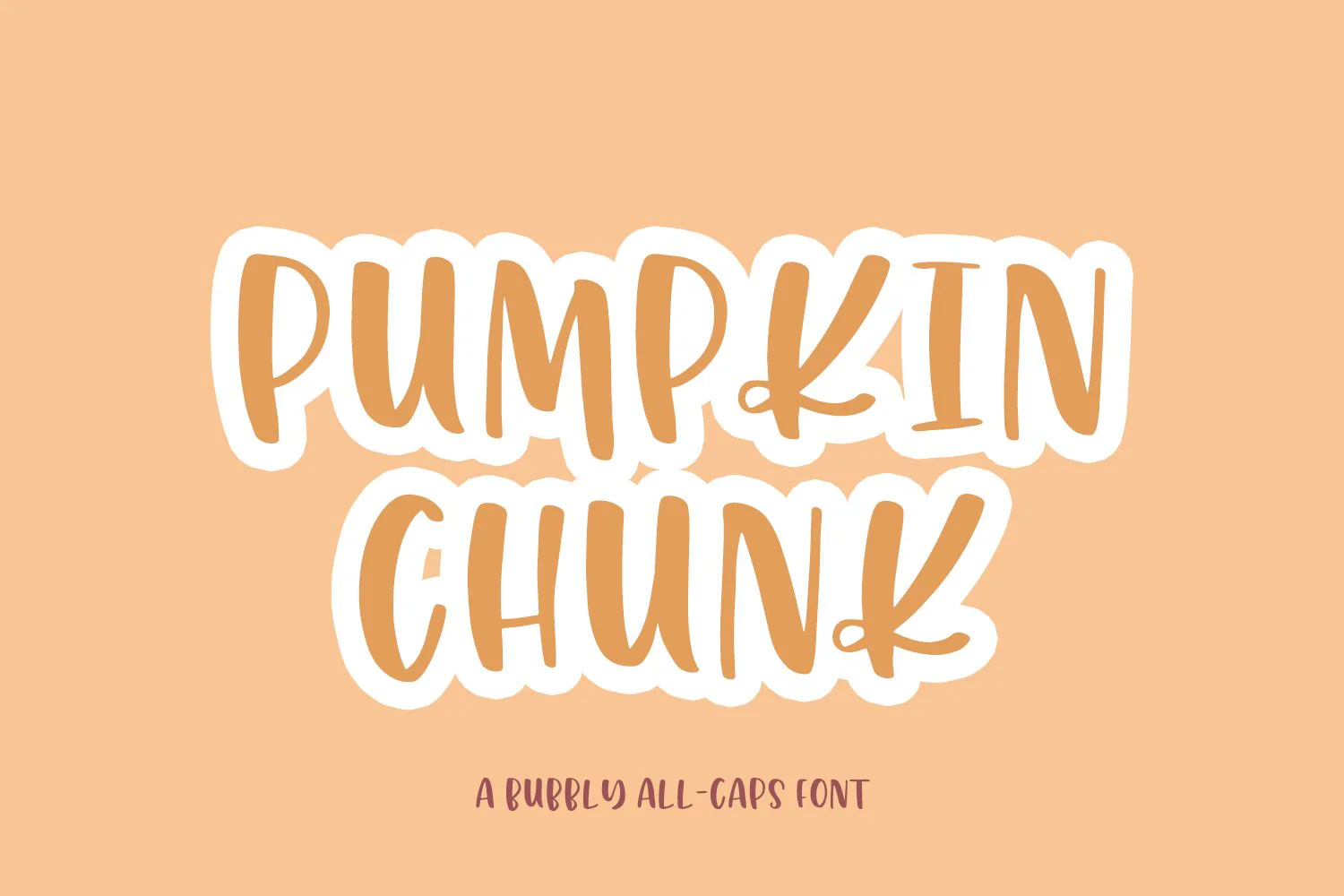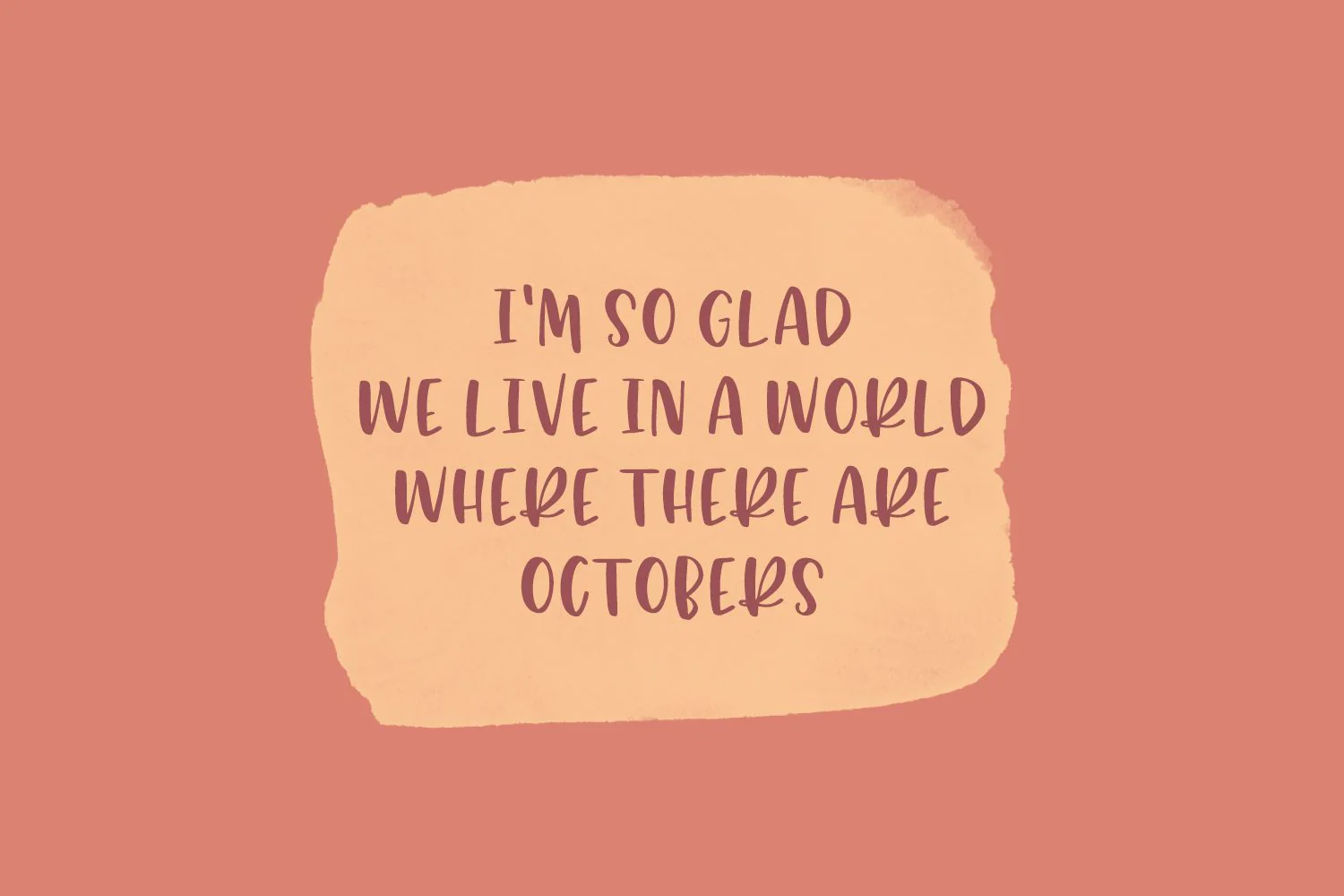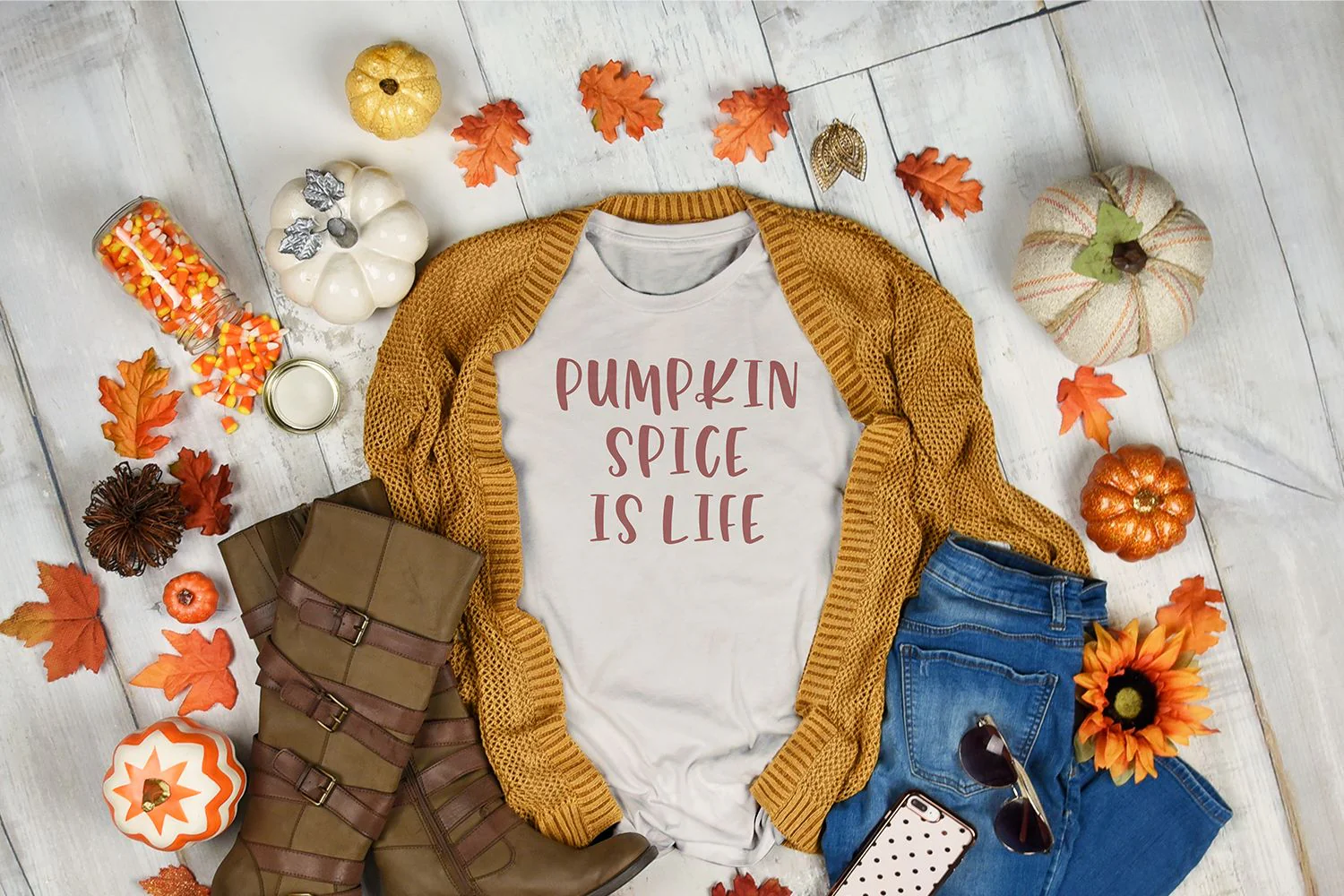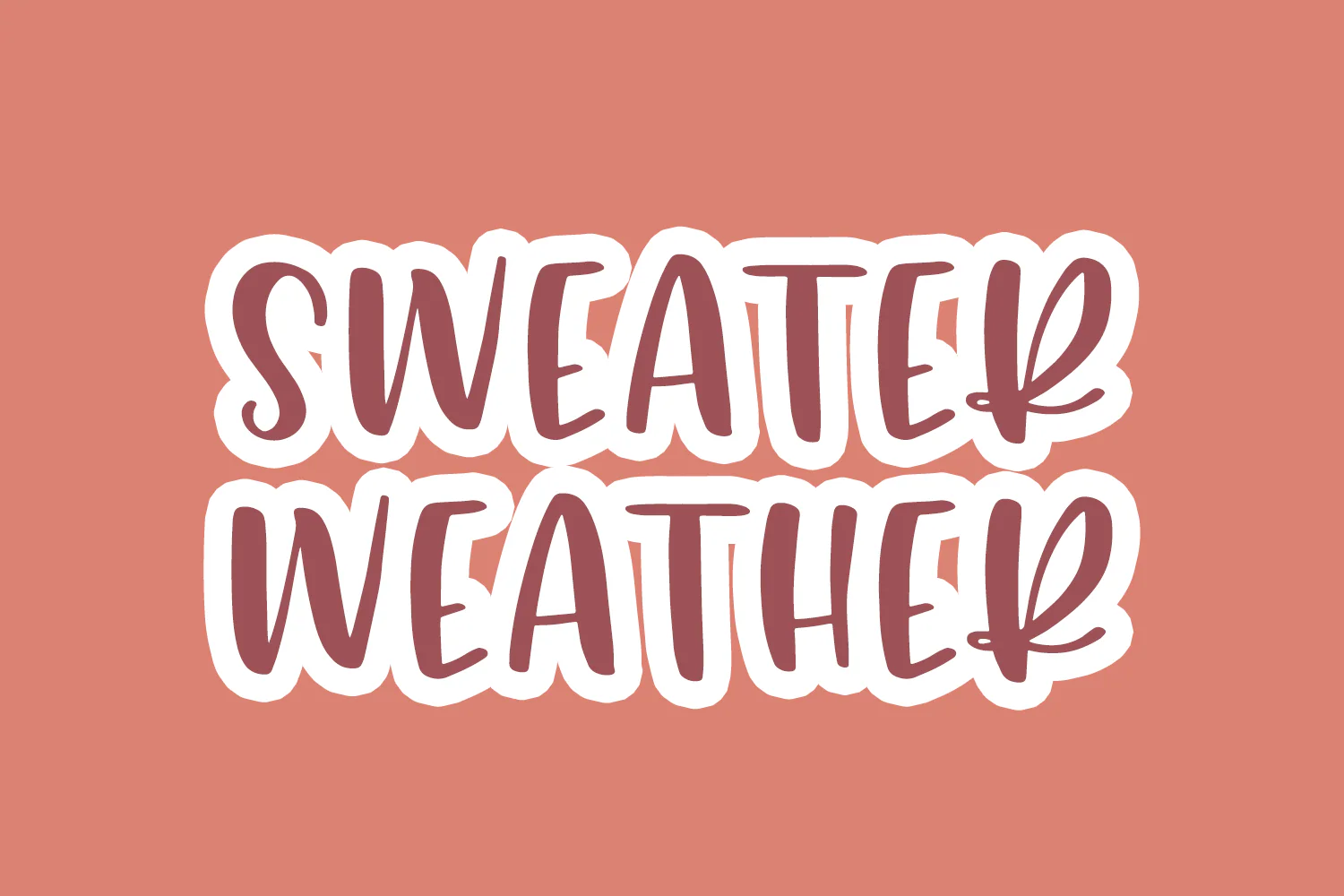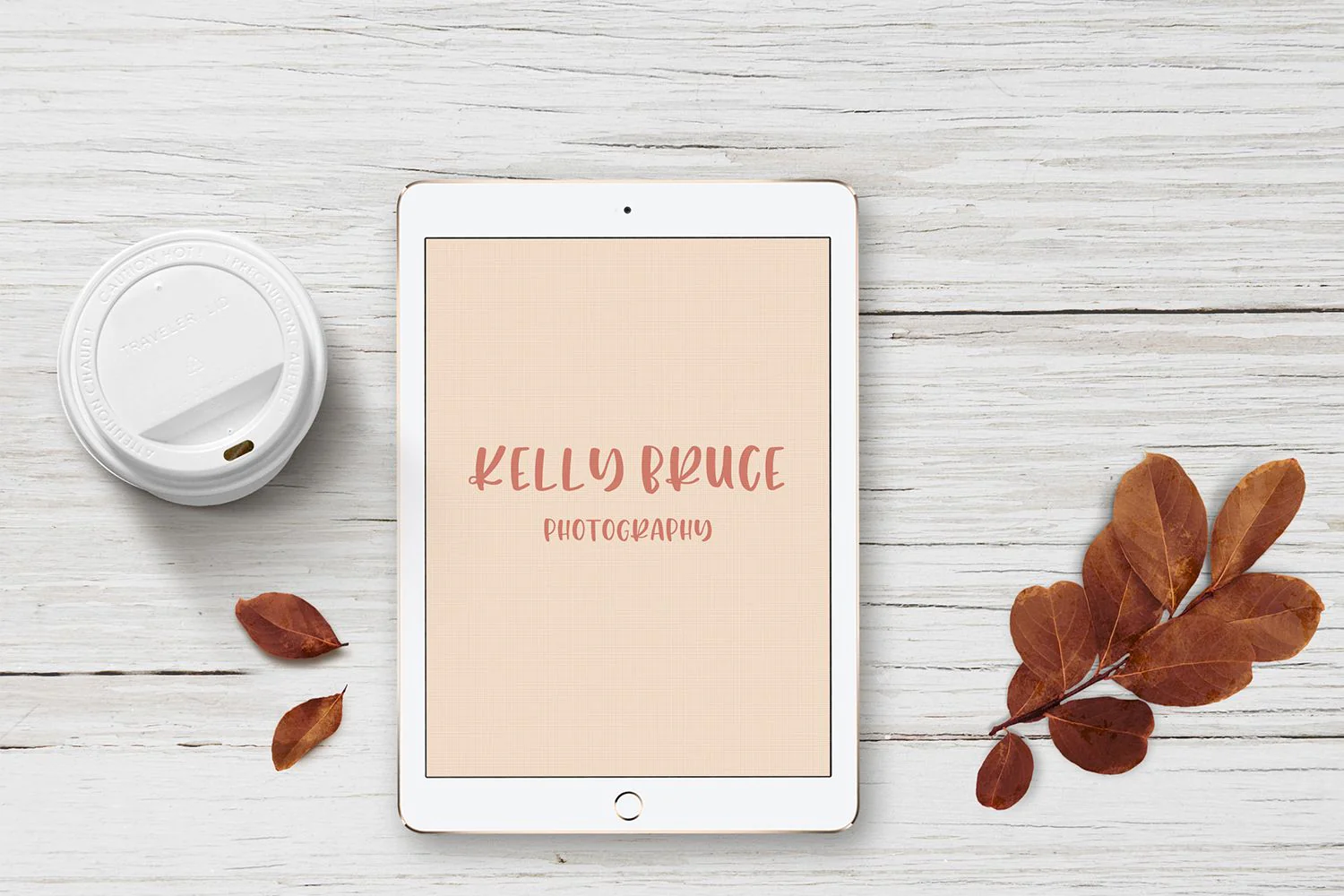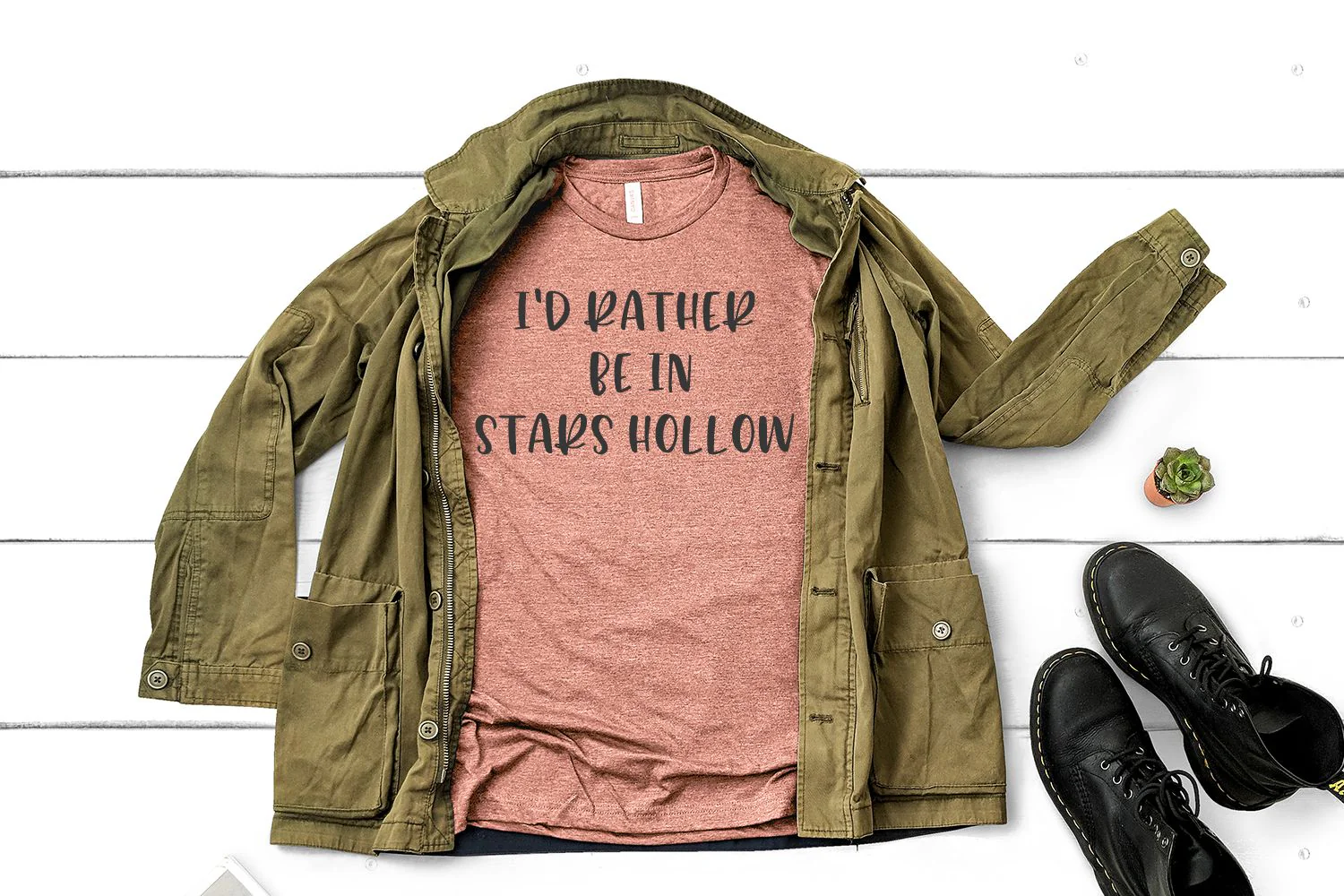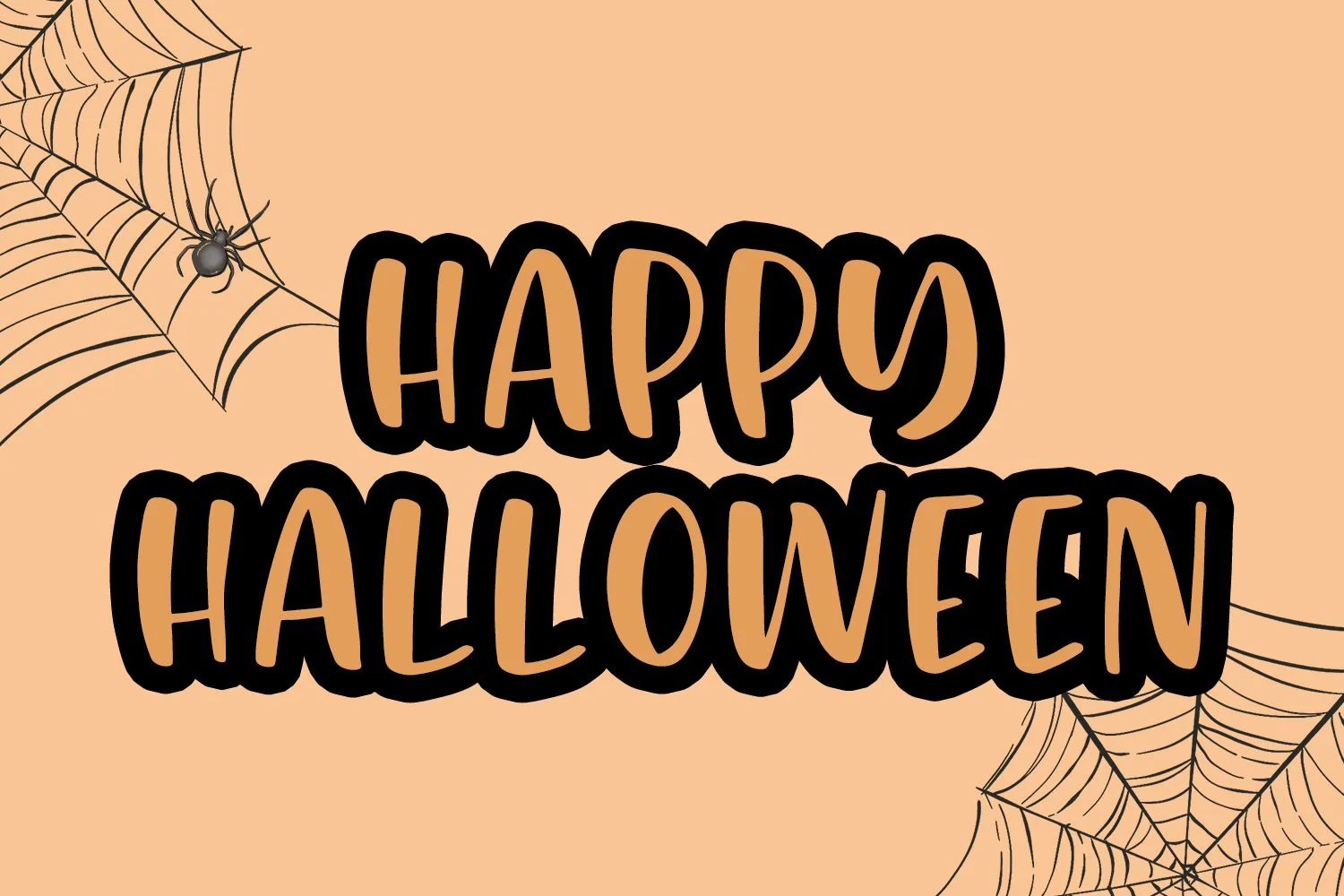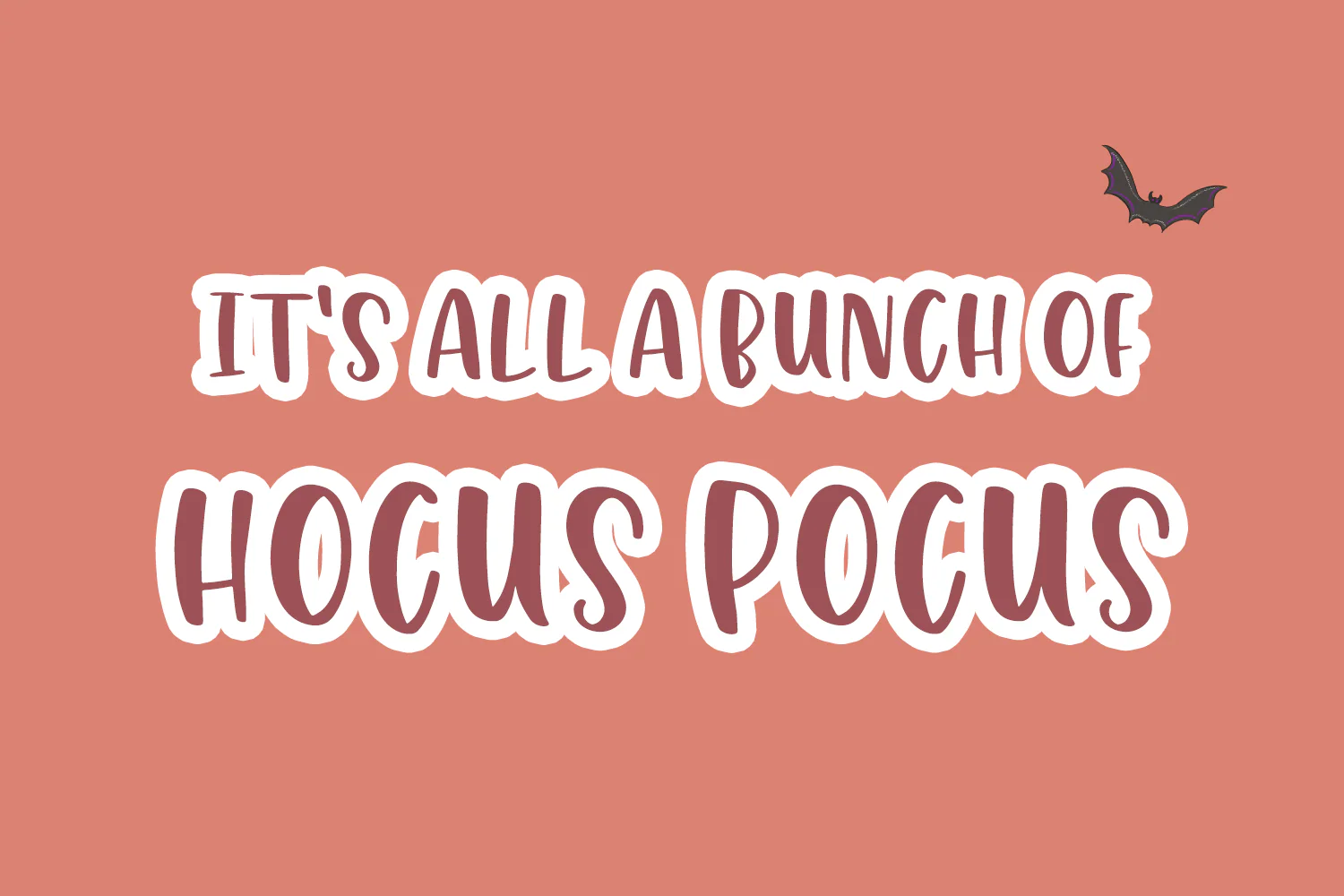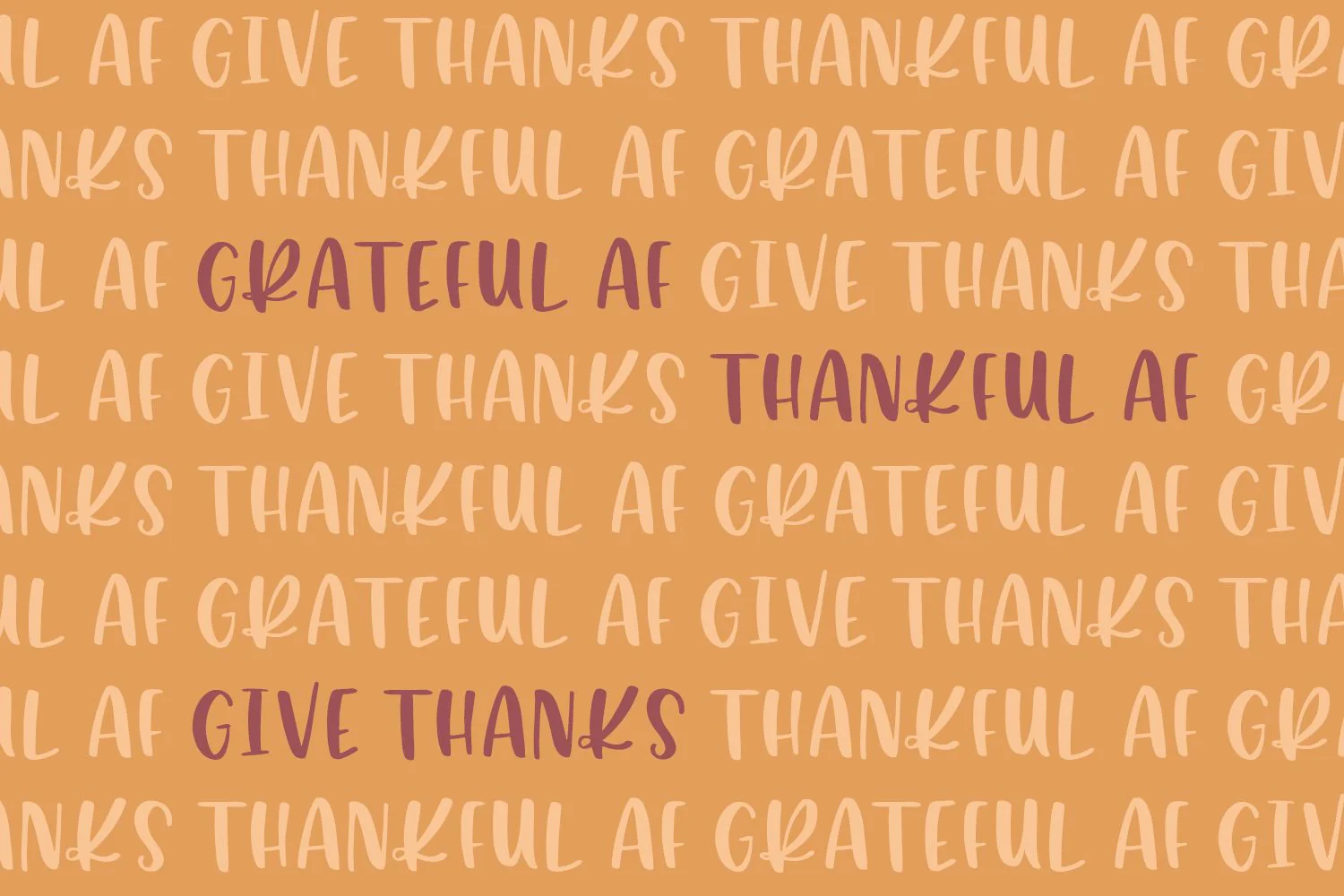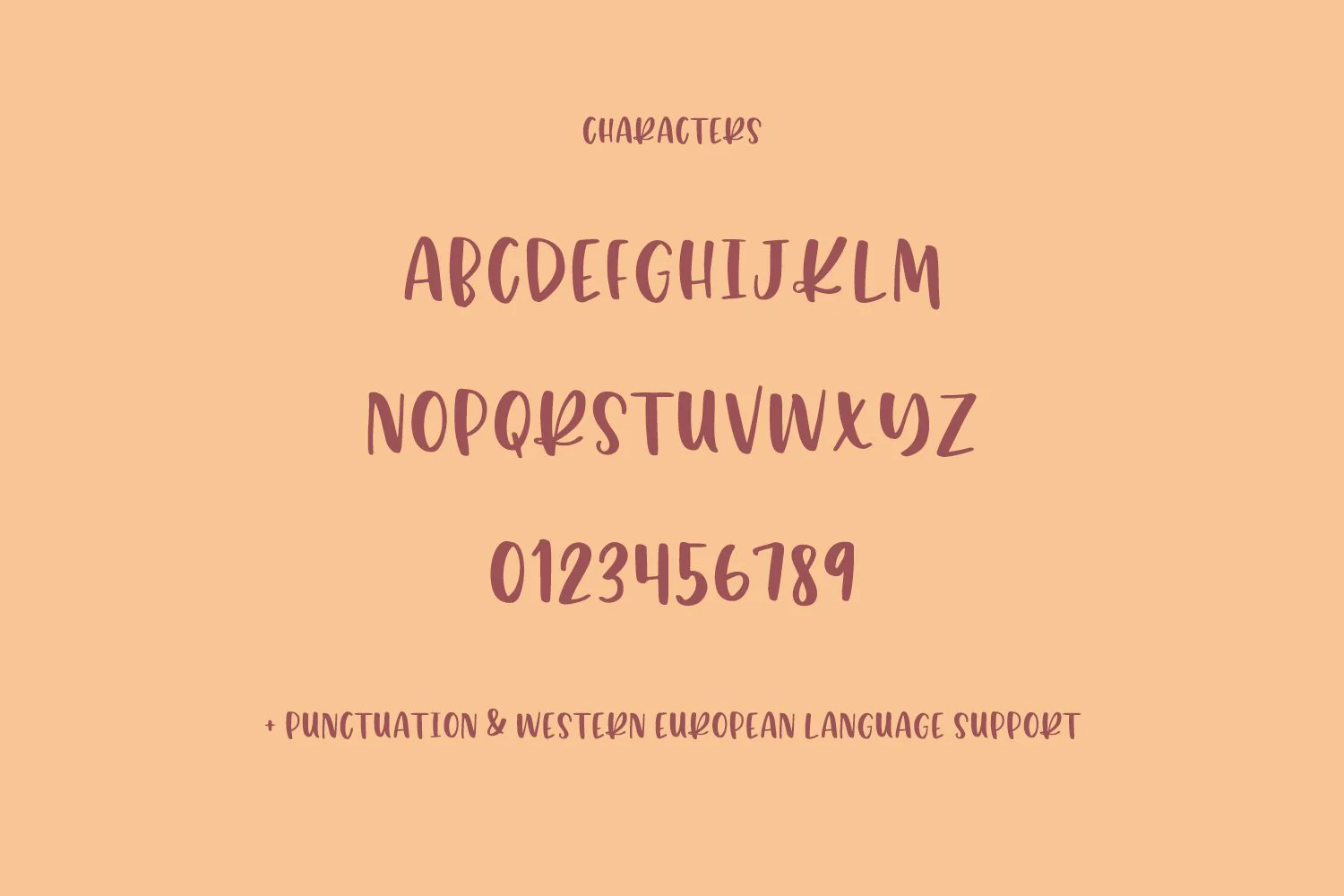
Pumpkin Chunk All Caps Sans Font
Introducing Pumpkin Chunk, an all caps sans font with a slightly feminine but very bold aesthetic.
Pumpkin Chunk is best for:
– website header elements needing a bold, slightly feminine, funky touch
– clean print design, like magazines + flyers
– t-shirt design
– logos + branding
– quote graphics for social media
– creating SVG designs; Pumpkin Chunk’s smooth edge is perfect for cutting on a Cricut or Silhouette machine
Pumpkin Chunk includes:
– uppercase characters only
– numbers + punctuation
– Western European Language Support